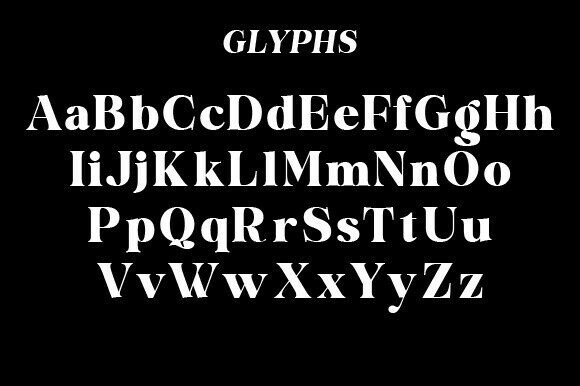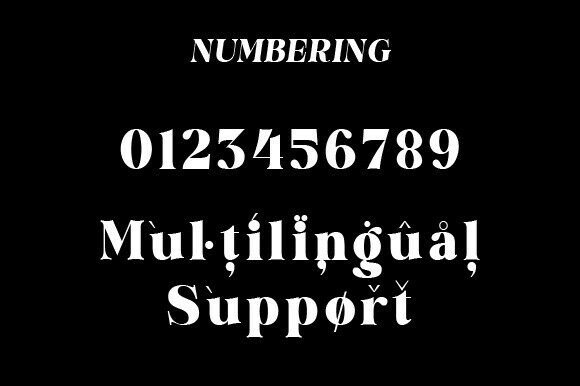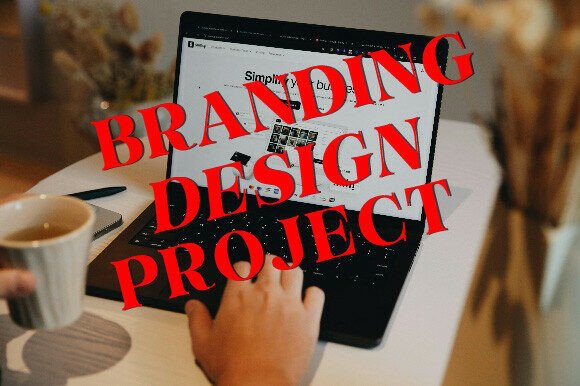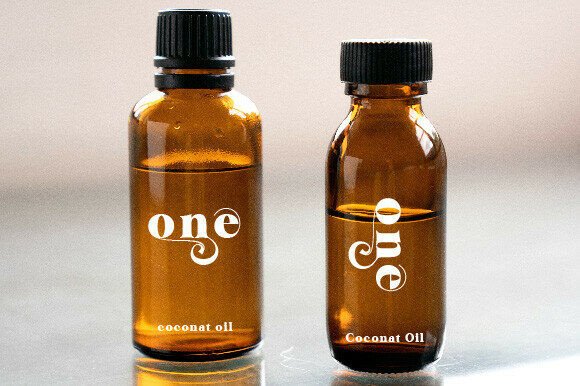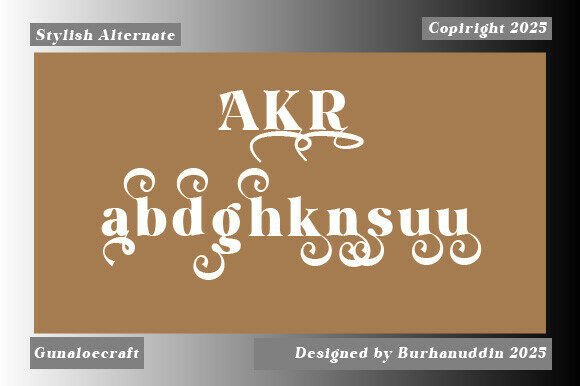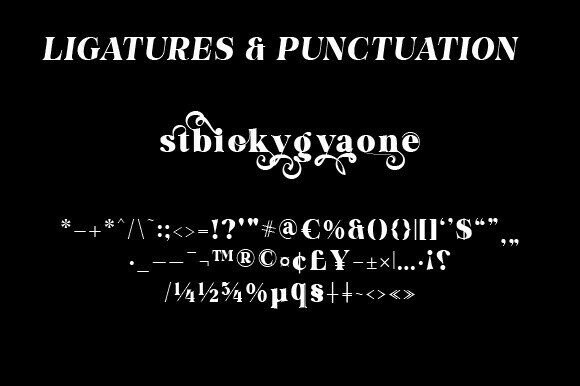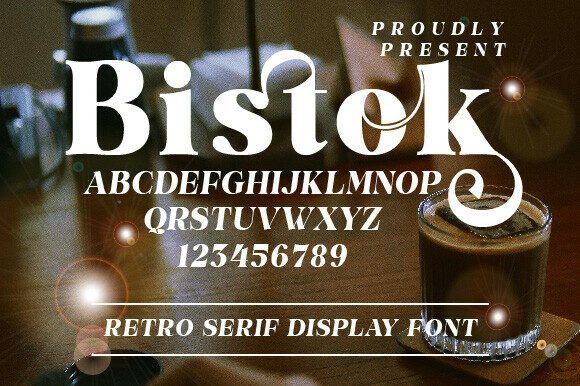
The Perfect Vintage Vibe: Introducing Bistok Font
Have you ever been rummaging through an old trunk in your attic, uncovering dusty relics from a bygone era, and suddenly, a spark of inspiration strikes? The thrill of discovery is a creative’s best friend, and for designers, it’s no different. The nostalgic charm of vintage designs can transport us to a world of elegance and sophistication, and that’s exactly what the Bistok Font embodies.
This retro-style display typeface is a masterclass in balancing classic charm with modern sensibilities. With its bold serif letterforms, balanced proportions, and strong character details, the Bistok Font is a game-changer for any design project. Whether you’re crafting a brand identity, designing product packaging, or creating eye-catching social media graphics, this font is an invaluable asset in your design toolkit.
Bistok Font Key Features
- Unique Characteristics: Distinctive, modern design with clean lines and geometric shapes; suitable for digital and print media, including logos, headings, and body text
Bistok Font Review
Overall, I found the Bistok font to be a decent addition to any design project. Here are some of its strengths: ✨
- Unique aesthetic: Bistok font has a distinct, elegant feel to it, making it perfect for projects that require a touch of sophistication.
- Legibility: Despite its unique design, the font remains highly legible, even at smaller font sizes.
- Comprehensive character set: Bistok font includes a wide range of characters, including Cyrillic and Greek scripts.
- Limited font sizes: The font may not look its best at very small or very large font sizes, where its unique design may become distorted.
- Lack of bold and italic variants: While the font is well-suited for body text, it may not be the best choice for headings or emphasis, where a bolder or italic font would be more effective.
Overall, I’d recommend the Bistok font for projects where a clean, elegant aesthetic is a must. However, it may not be the best choice for projects that require a wide range of font sizes or bold/italic emphasis.
Tips for Getting the Most Out of Bistok Font
1. Experiment with font sizes and styles to achieve the desired visual impact.
2. Combine Bistok with other fonts for a unique look.
3. Use Bistok for headings and titles to create a clear visual hierarchy.
The Bistok font is suitable for:
- Business and corporate branding